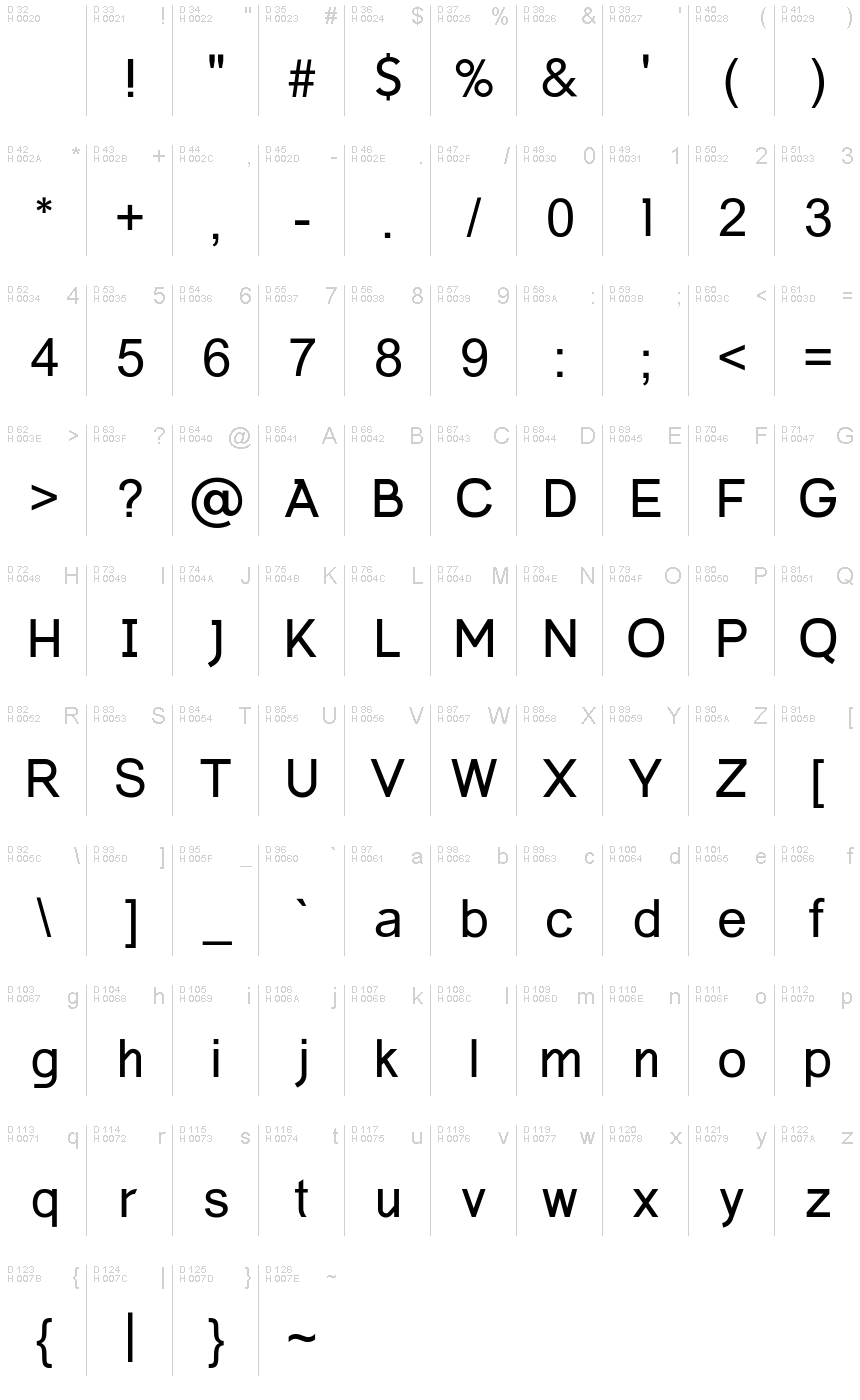
Aeronomic Sans Regular
Aeronomic Sans font by UI Creative redefines modern typography with its sleek sans serif style. Its clean lines and balanced proportions make it effortlessly chic, drawing the eye without overwhelming. Ideal for brands seeking a contemporary edge, this font adds a touch of sophistication to any design project. Whether for digital banners or print media, Aeronomic Sans is your go-to choice.